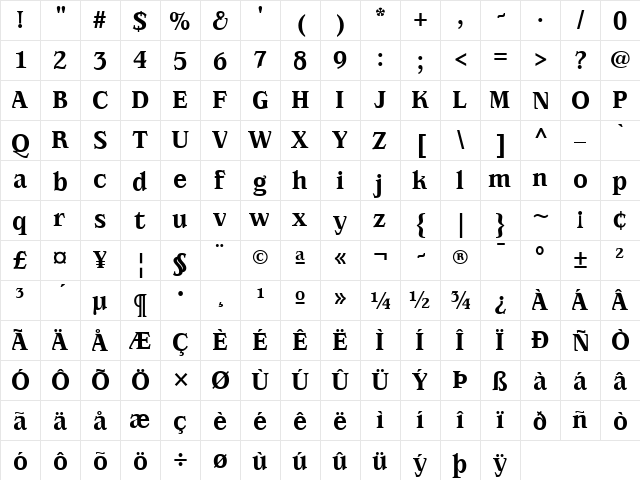
AIAlign Regular Font Preview
AIAlign Regular
AIAlign Regular Font Details
| Foundry | John Pugh |
Design Context for AIAlign Typeface
AIAlign takes a measured approach to typography — its balanced proportions and neutral character make it a reliable workhorse for both digital and print work.